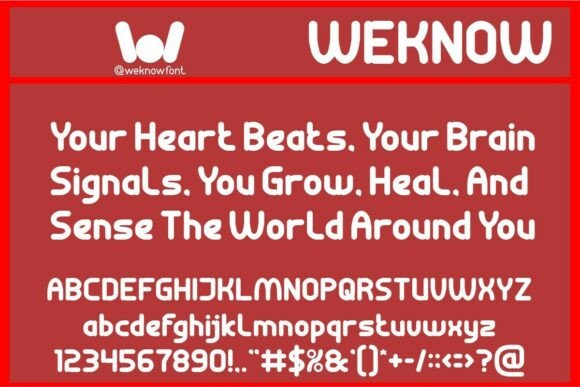
Being Alive Font: Bringing Life to Your Designs with a Modern Twist
Typography plays a vital role in design, and the right font can make all the difference in capturing the essence of your message. Introducing Being Alive, a modern, playful font that is sure to breathe life into your latest designs. With its smooth, rounded corners and sans-serif style, this font is perfect for adding a touch of personality to your work.
Geometric Inspiration Meets Playful Style
Being Alive font draws inspiration from geometric shapes, giving it a unique and modern feel. The smooth, rounded corners add a touch of playfulness, making it perfect for headlines, corporate identities, and brand designs. The sans-serif style ensures that the font remains clean and easy to read, even at smaller sizes.
Perfect for Diverse Applications
Being Alive font is incredibly versatile and can be used across a wide range of mediums. From apparel branding and music productions to movie titling and game design, this font is sure to make a statement. Its fun monoline weight adds a casual touch to brand identities, making it perfect for:
- Apparel branding: Add a touch of personality to your clothing line with Being Alive font.
- Music productions: Use Being Alive font to create eye-catching album covers and promotional materials.
- Movie titling: Bring your movie titles to life with the modern and playful style of Being Alive font.
- Game design: Add a fun and casual touch to your game designs with Being Alive font.
Beyond Printed Material: Shine Online with Being Alive Font
The interaction with Being Alive font doesnโt end at printed material. This font shines online, adding a spirited touch to your:
- YouTube videos: Use Being Alive font to create eye-catching video titles and intros.
- Instagram posts: Add a touch of personality to your Instagram posts with Being Alive font.
- Website design: Bring your website to life with the modern and playful style of Being Alive font.
Unleash Your Creativity with Being Alive Font
Being Alive font is the perfect addition to your next creative endeavor. Whether youโre working on a glossy magazine cover, a hardbound book, or a comic strip, this font is sure to captivate. Its versatility and playfulness make it an excellent choice for:
- Magazine covers: Add a touch of personality to your magazine covers with Being Alive font.
- Book designs: Bring your book designs to life with the modern and playful style of Being Alive font.
- Comic strips and cartoons: Add a fun and casual touch to your comic strips and cartoons with Being Alive font.
In conclusion, Being Alive font is a modern, playful font that is sure to breathe life into your designs. With its smooth, rounded corners and sans-serif style, itโs perfect for adding a touch of personality to your work. Its versatility and geometric inspiration make it an excellent choice for diverse applications, from apparel branding and music productions to movie titling and game design. Unleash your creativity with Being Alive font and bring your designs to life!